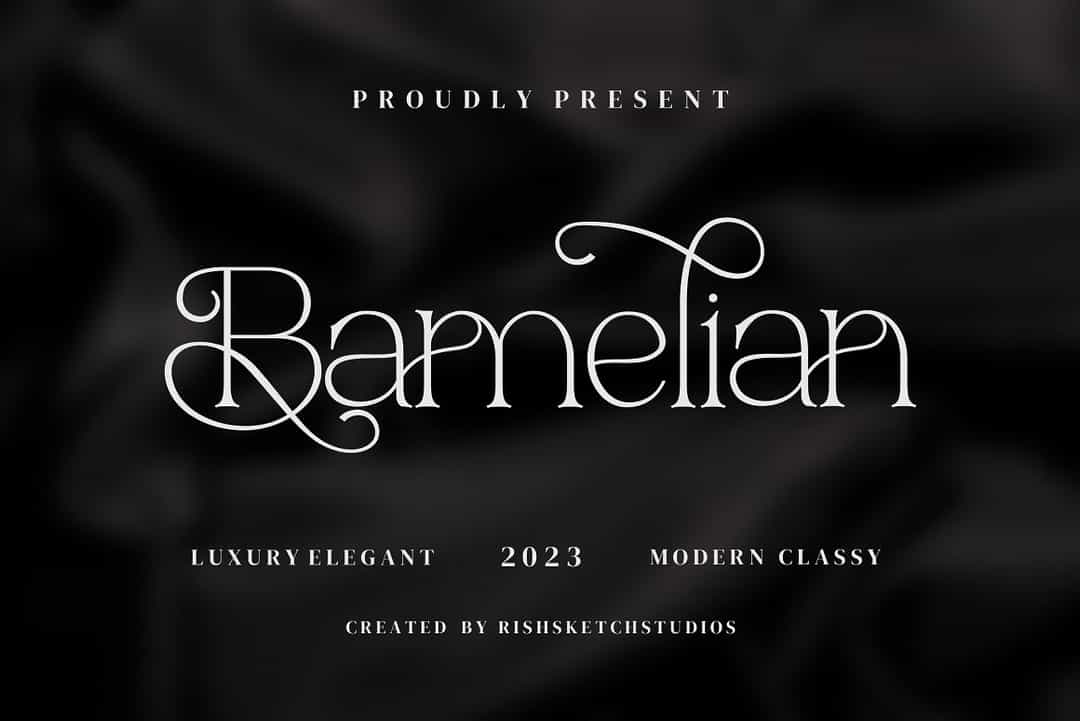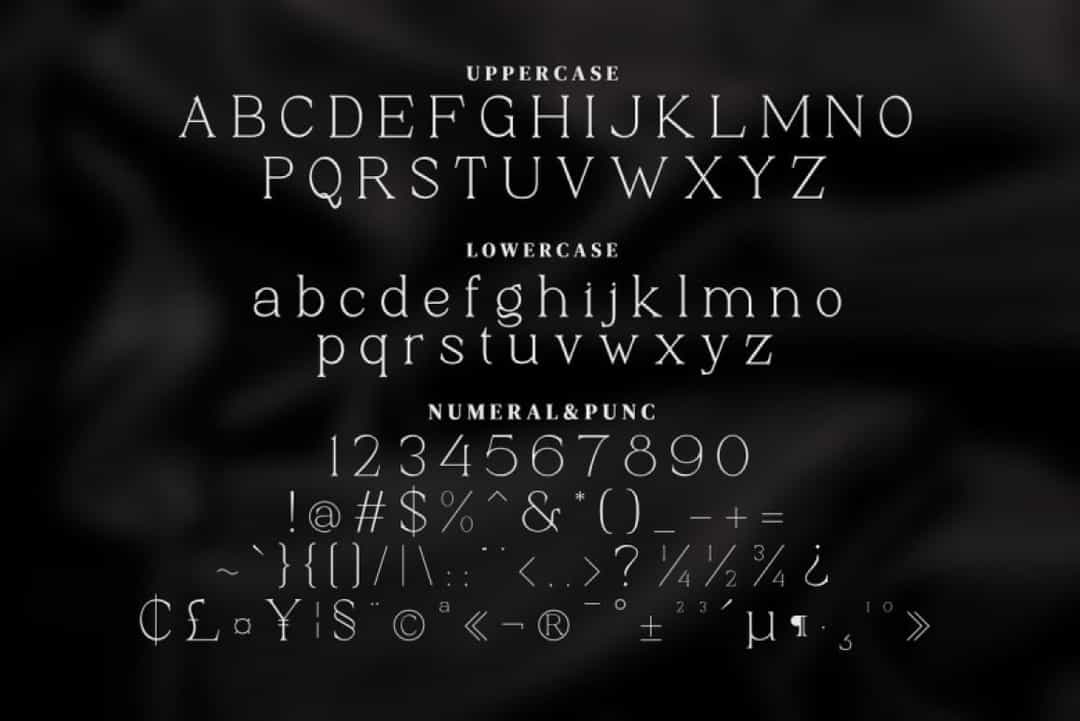
Bamelian Serif Typefaces are perfect for all of your projects that require elegant typography – logos, brand design for home appliances packaging and packaging labels, posters mugs posters clothing bags t-shirts posters quotes clothing bags and t-shirts business cards book covers greeting cards invitation cards labels photography water signs special events as well as any other venture that requires elegant appeal.